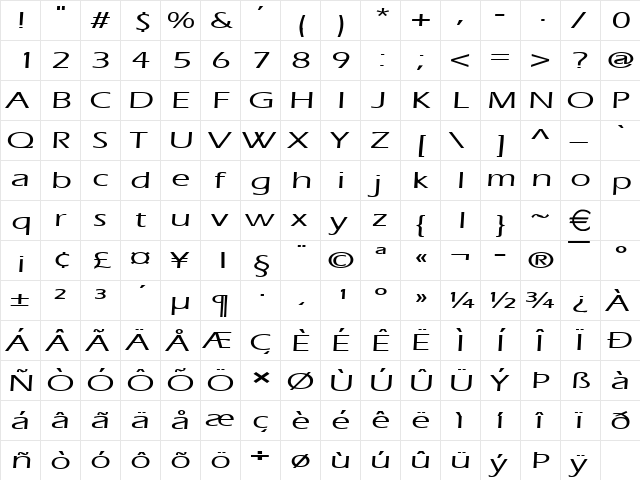
EricExtended Normal Font Preview
EricExtended Normal
EricExtended Normal Font Details
Design Context for EricExtended Typeface
EricExtended takes a measured approach to typography — its balanced proportions and neutral character make it a reliable workhorse for both digital and print work.